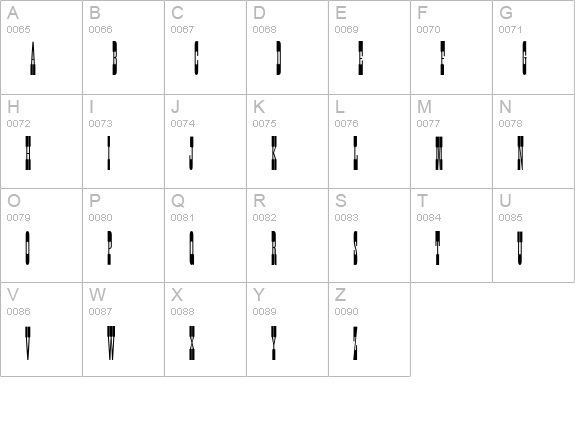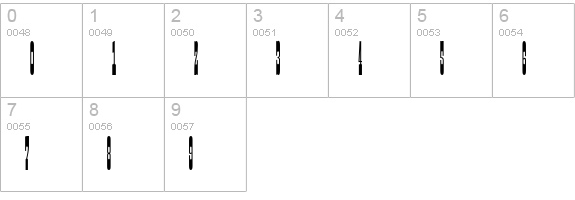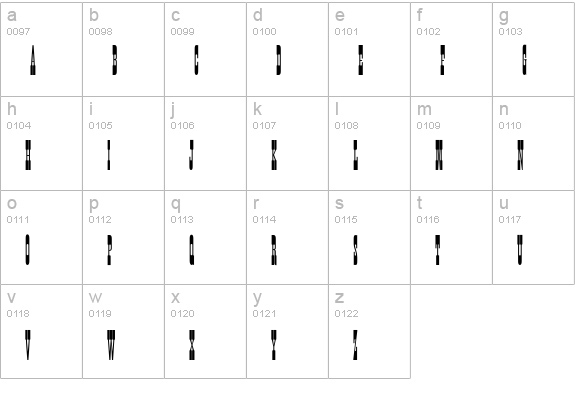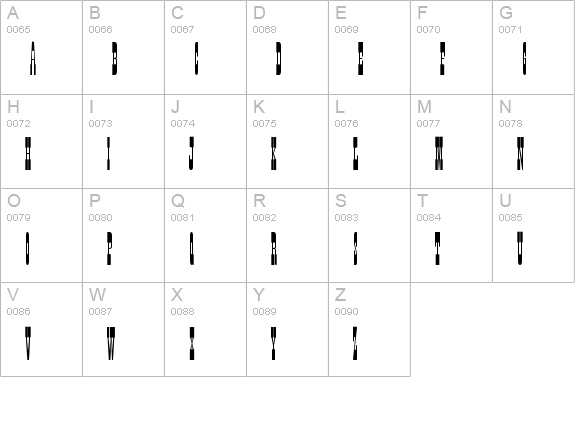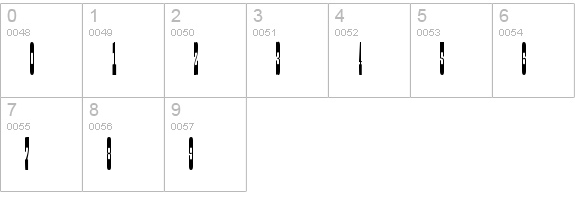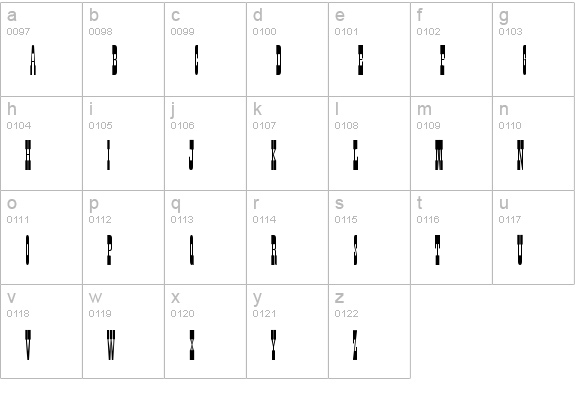
AIWood-FrenchCondensed Font Details
Introducing AIWood-FrenchCondensed font, a sleek and modern typeface designed to add a touch of sophistication to any design project. This elegant condensed font features a unique blend of traditional and contemporary elements, making it perfect for a wide range of applications. AIWood-FrenchCondensed font is meticulously crafted with attention to detail, resulting in a clean and polished look that is sure to impress. Its slim and elongated characters exude a sense of refinement and class, making it ideal for use in branding, logos, headlines, and more. What's even better is that AIWood-FrenchCondensed font is available for free download at FontsMarket.com. This means you can easily access this high-quality font and incorporate it into your designs without any cost. Don't miss out on the opportunity to elevate your projects with the timeless charm of AIWood-FrenchCondensed font. Download it today and start creating stunning visuals that stand out from the crowd.